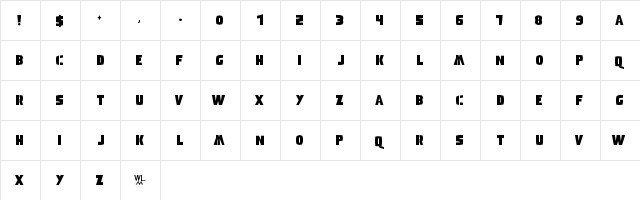
WLM The Quick Brown Fox Regular
| Designer | Paul Bokslag |
Design Context for WLM The Quick Brown Fox Typeface
WLM The Quick Brown Fox is a composed and adaptable typeface that performs quietly and consistently across a wide range of design contexts.